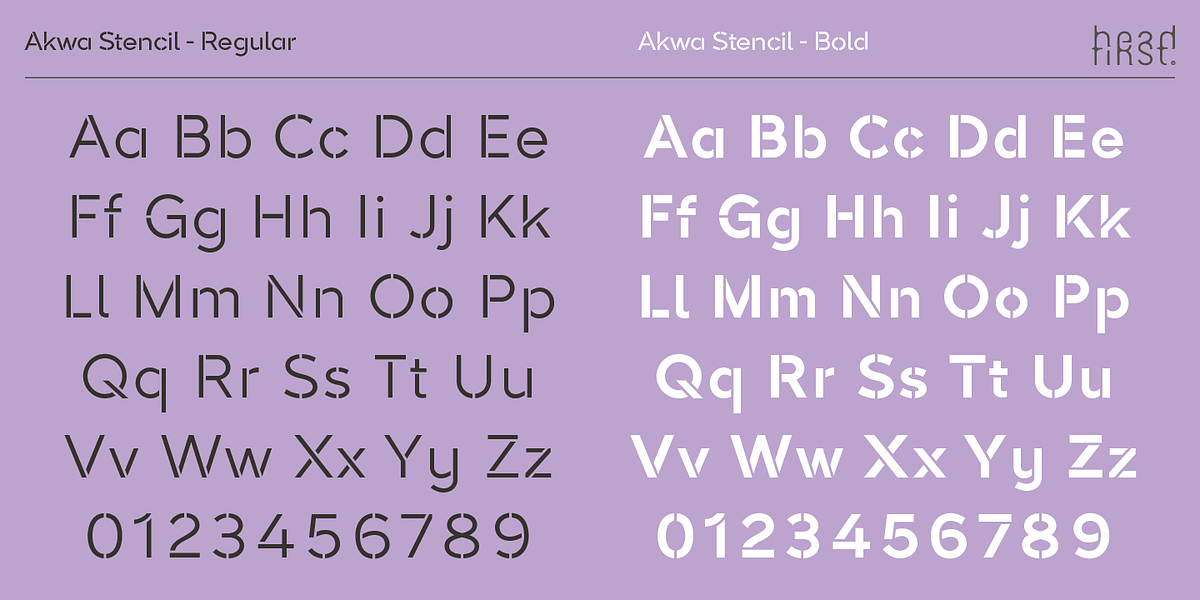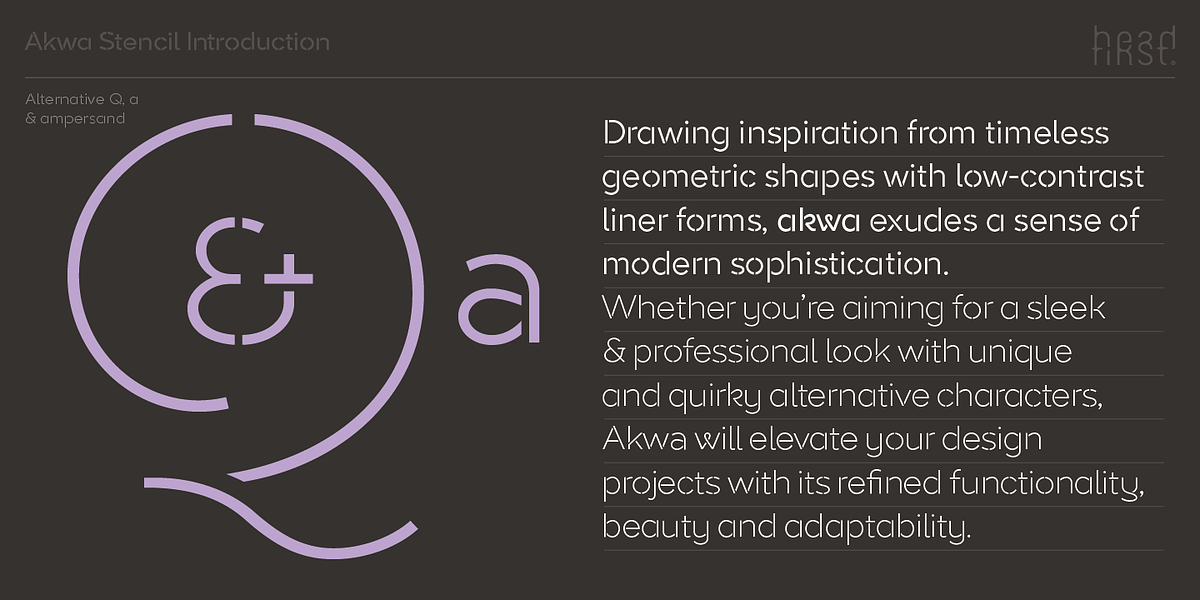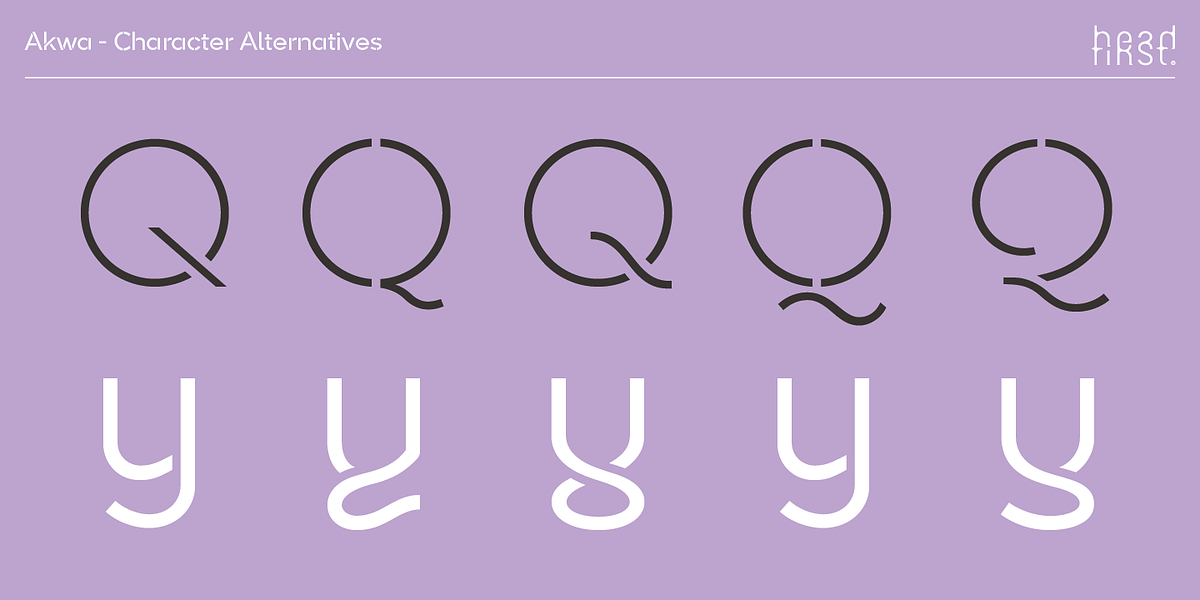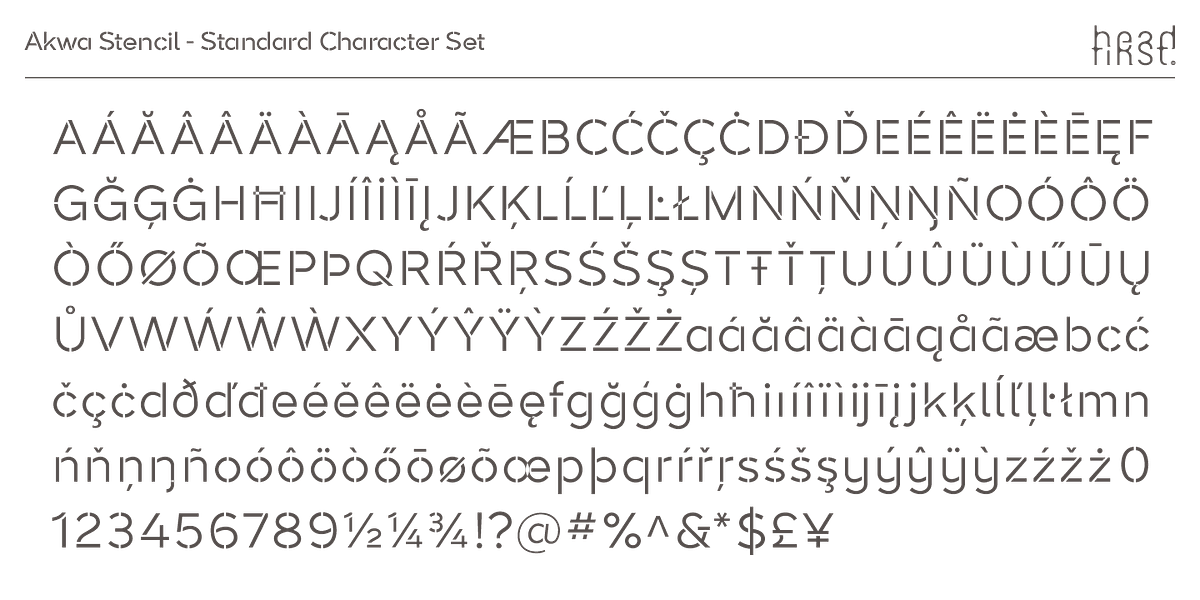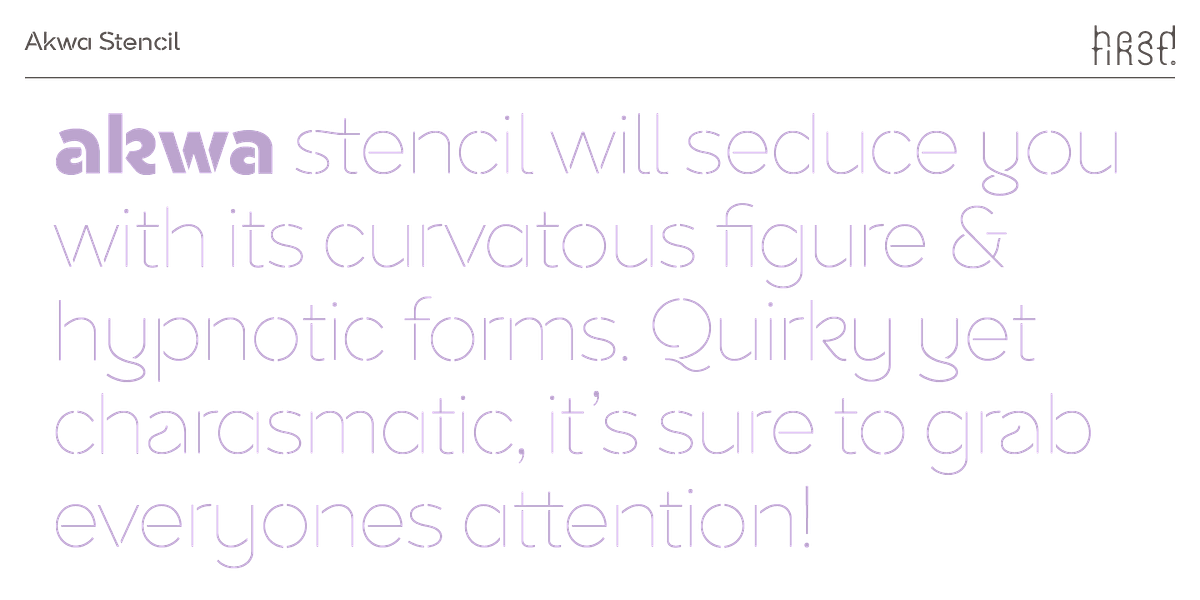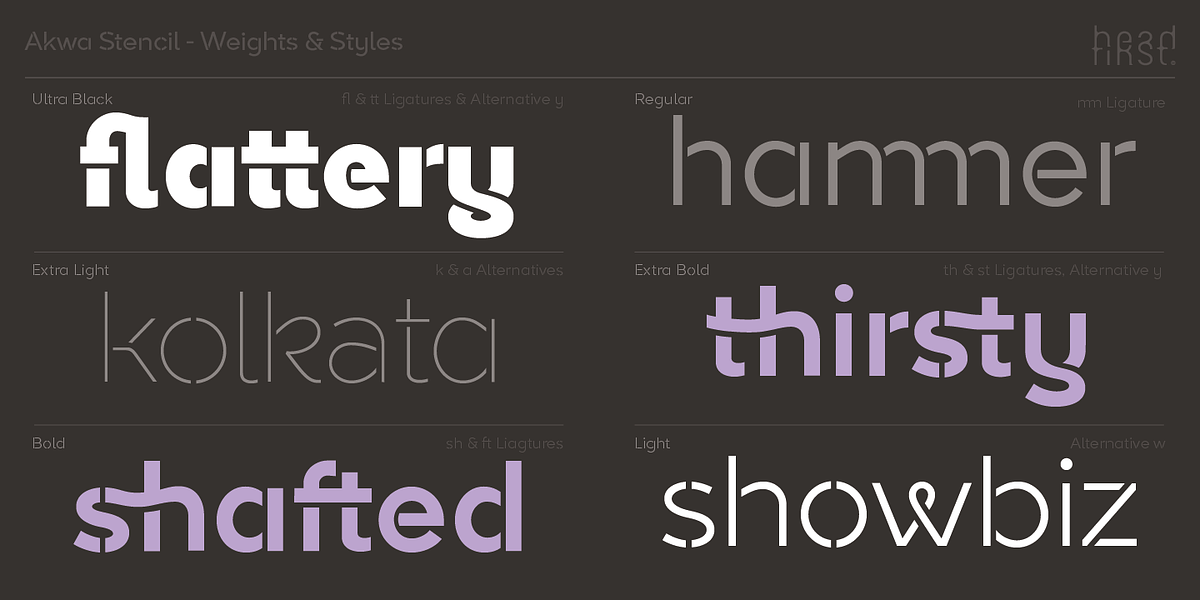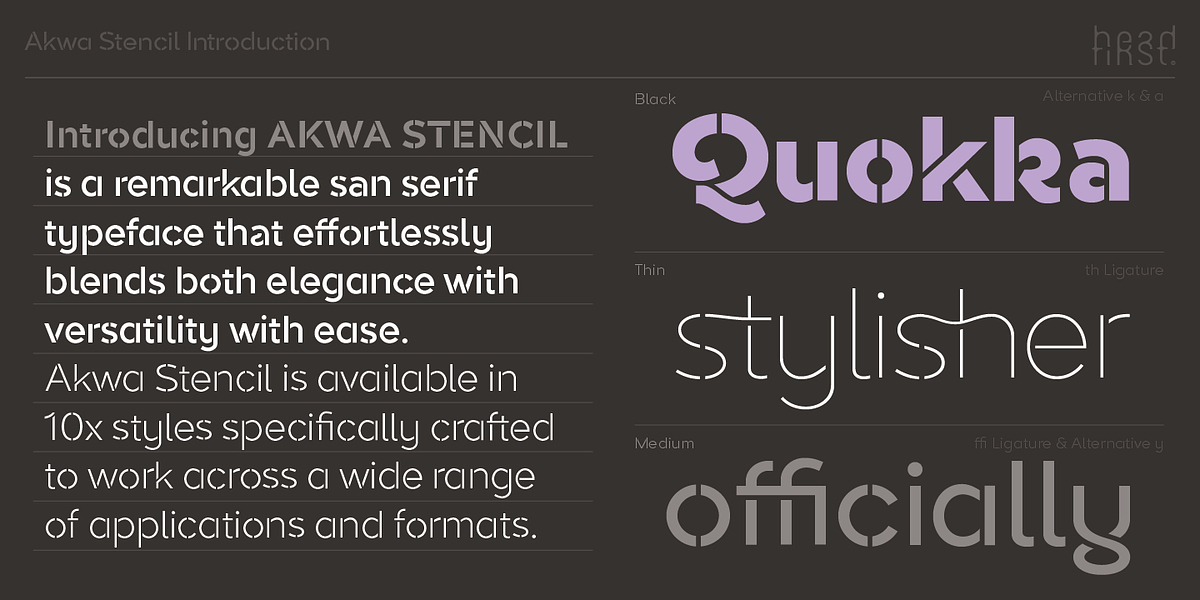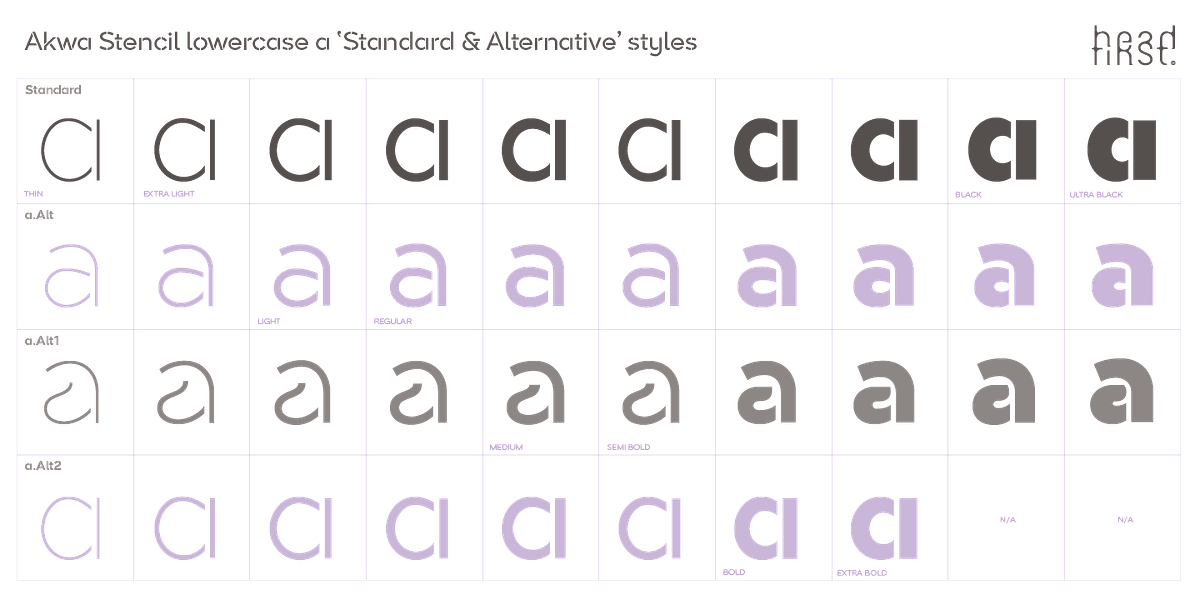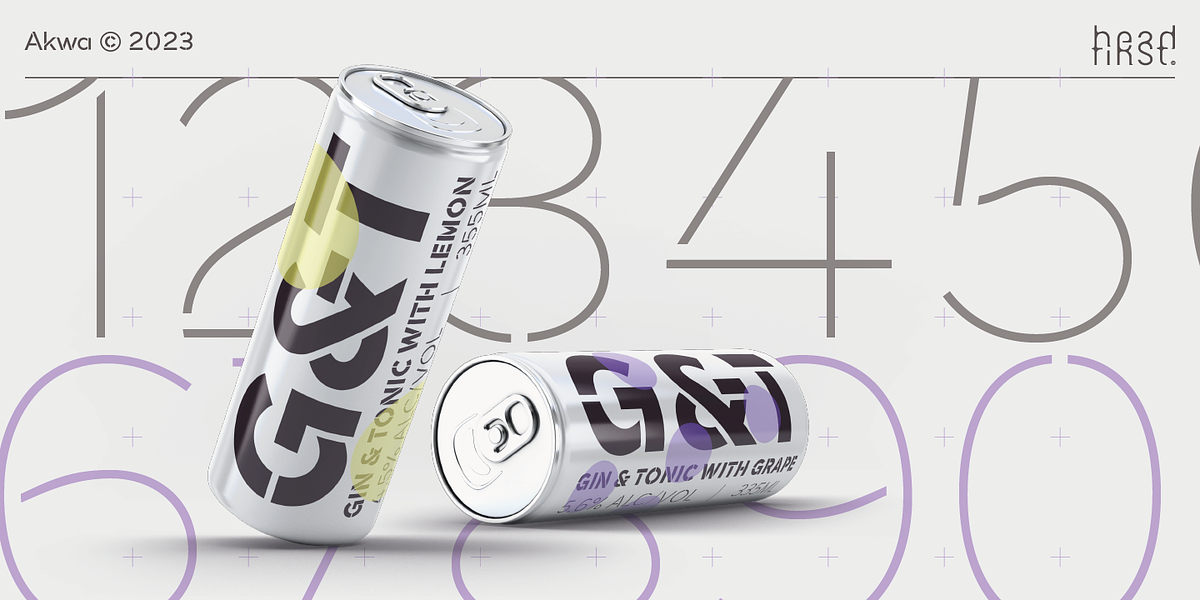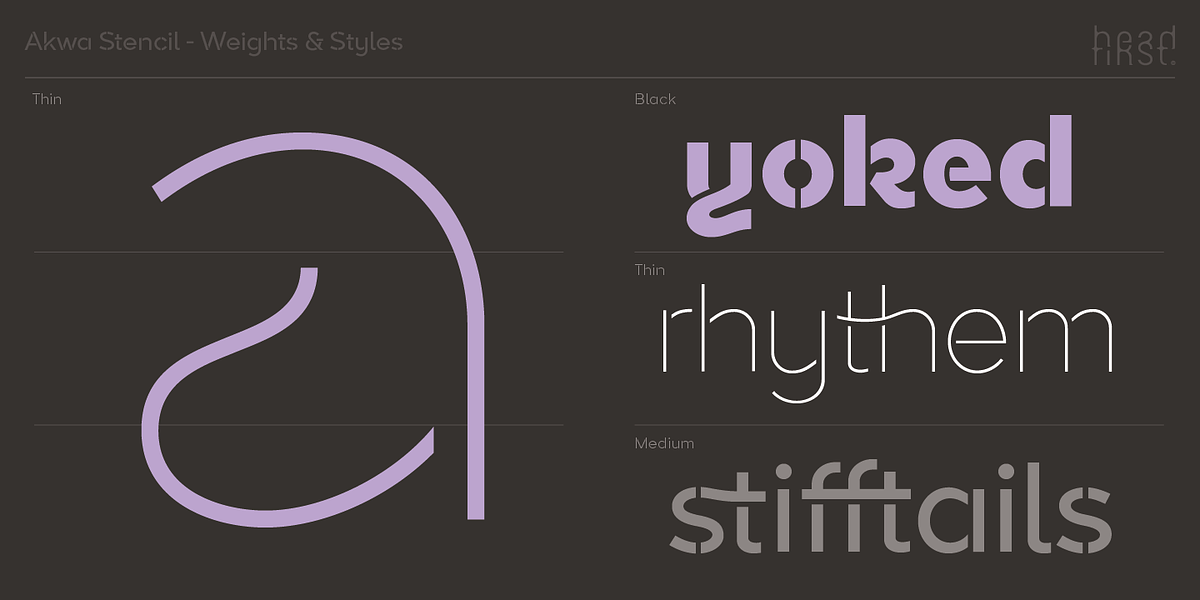
Akwa Stencil
Akwa Stencil is a geometric sans-serif typeface characterized by its stencil-like appearance. The font features low contrast and linear forms, giving it a modern and sophisticated feel. It is well-suited for display purposes such as headlines and branding.